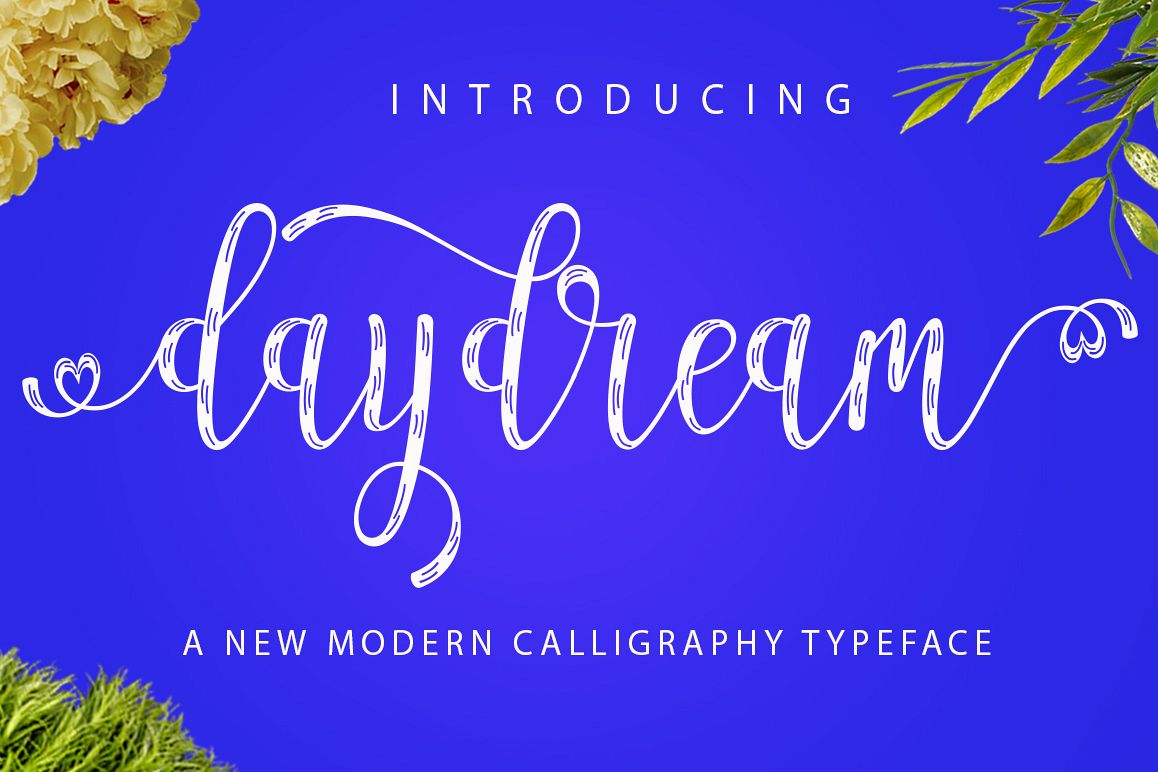
daydream
daydream is a font that made the hand by having the character up and down like a dancer. daydream has a very unique style of calligraphy, it is very suitable for use in the work of modern design.The Features of this fonts is:
• Standart ligatures
Can be used for various purposes.such as headings, logos, wedding invitation, t-shirt, letterhead, lable, news, posters, badges etc. To enable the OpenType Stylistic alternates, you need a program that supports OpenType features such as Adobe Illustrator CS, Adobe Indesign & CorelDraw X6-X7.a font that made the hand by having the character up and down like a dancer. daydream has a very unique style of calligraphy, it is very suitable for use in the work of modern design.